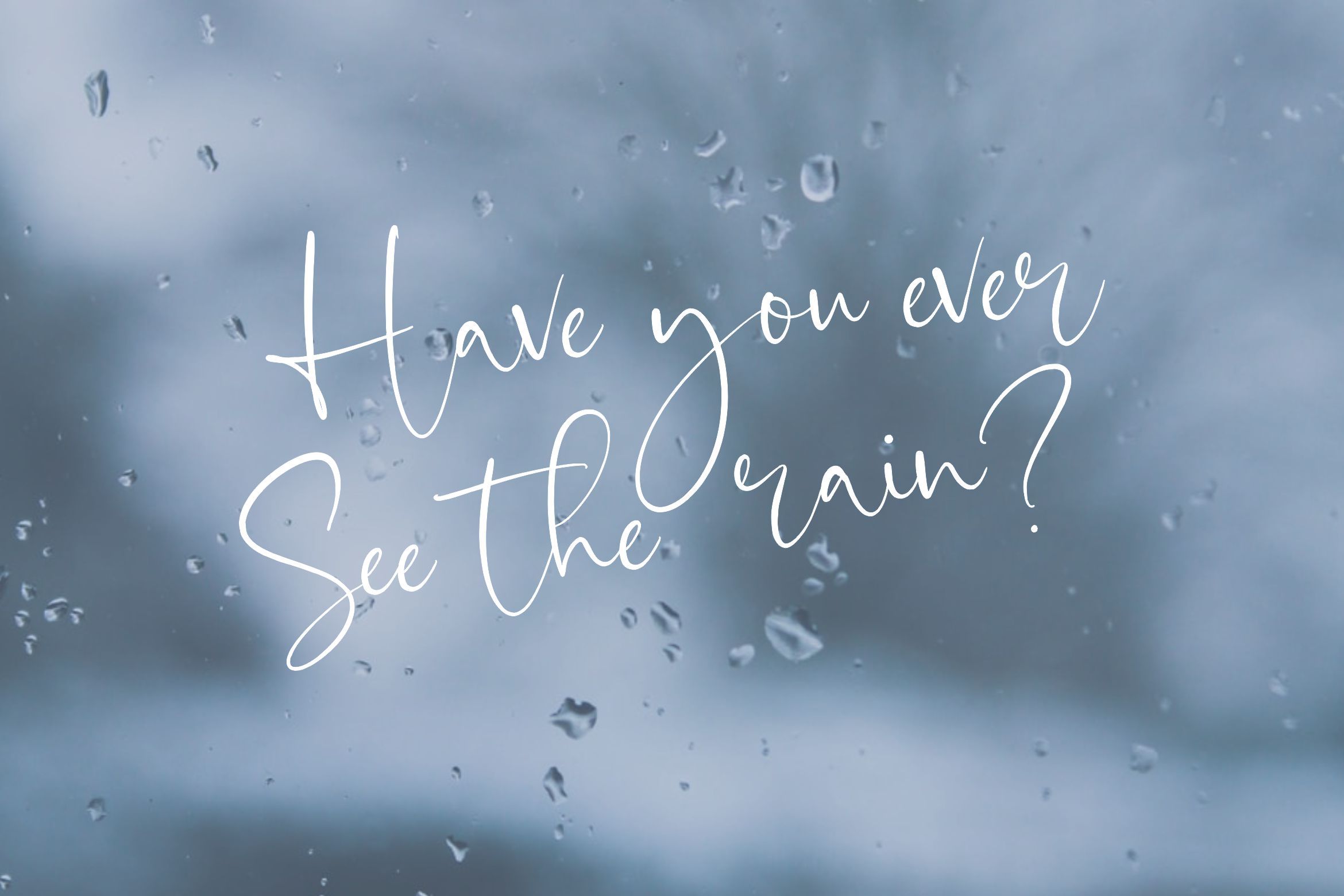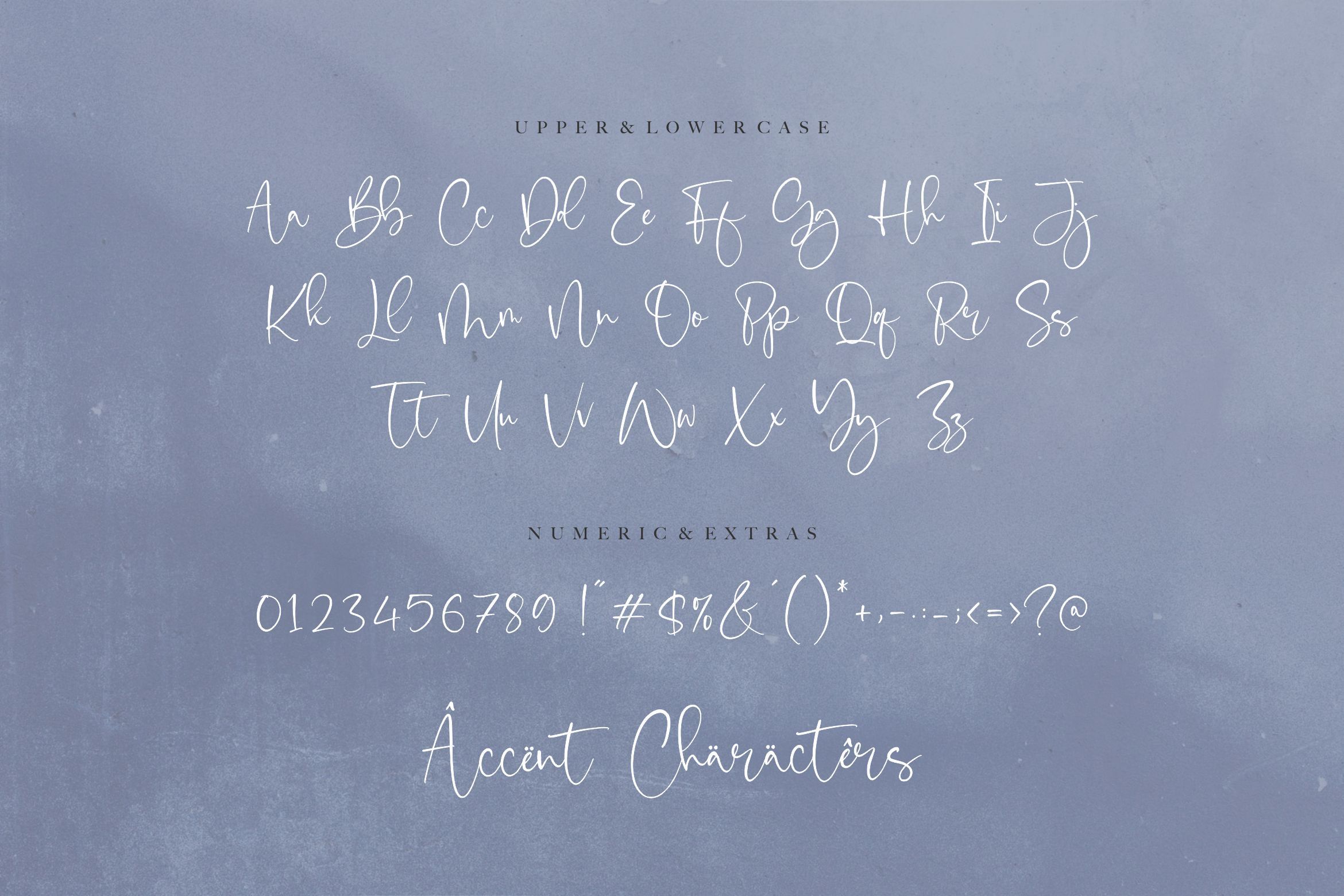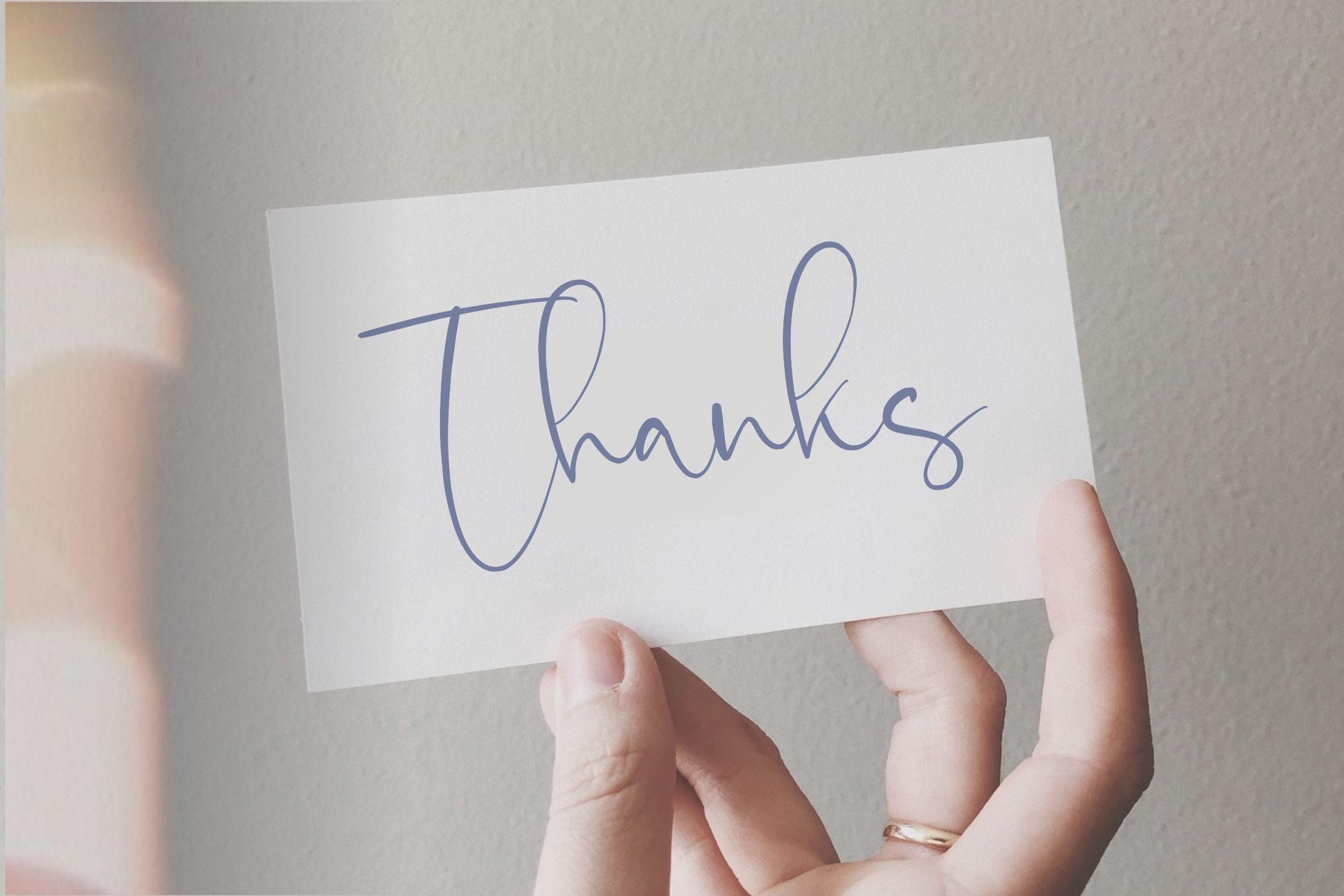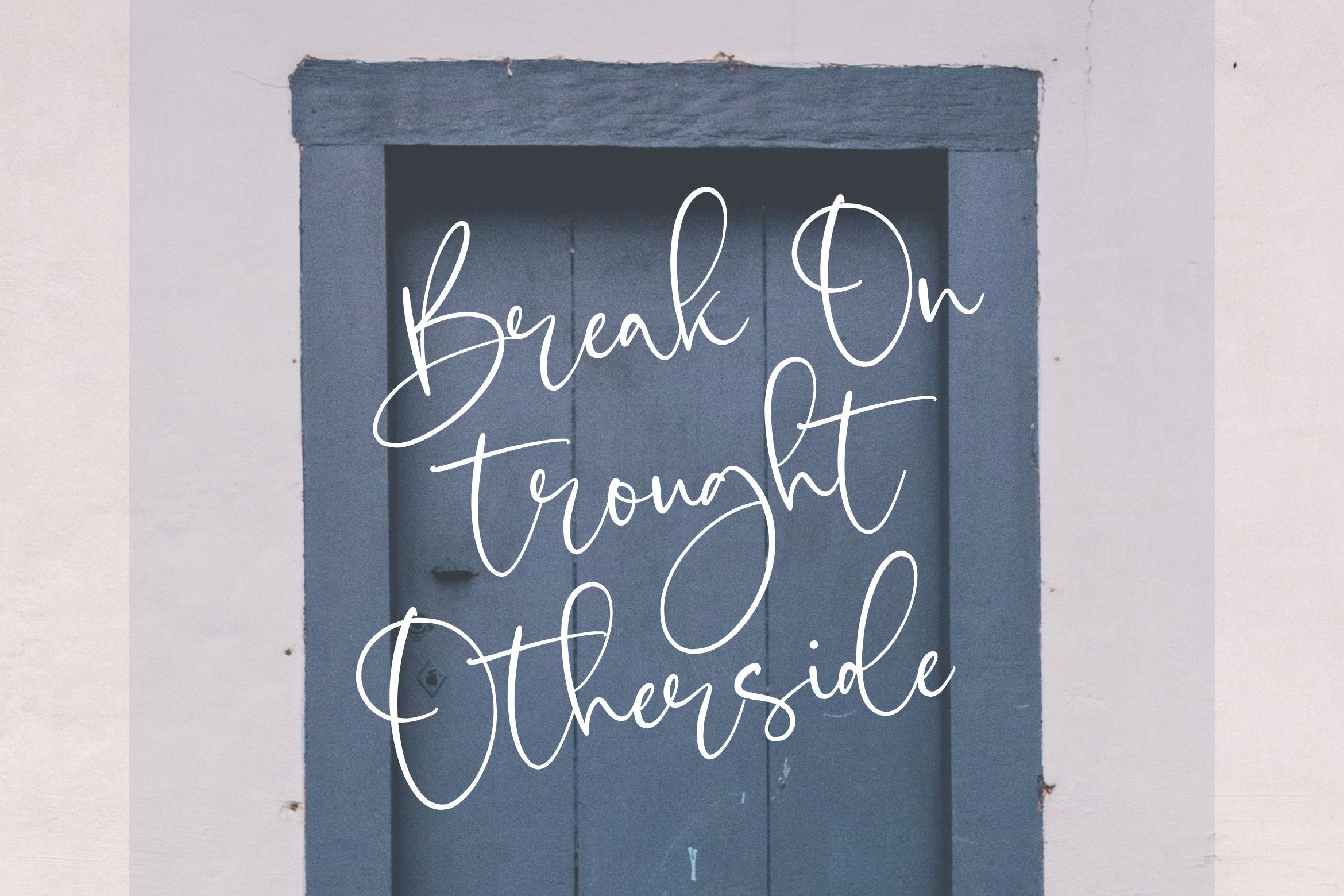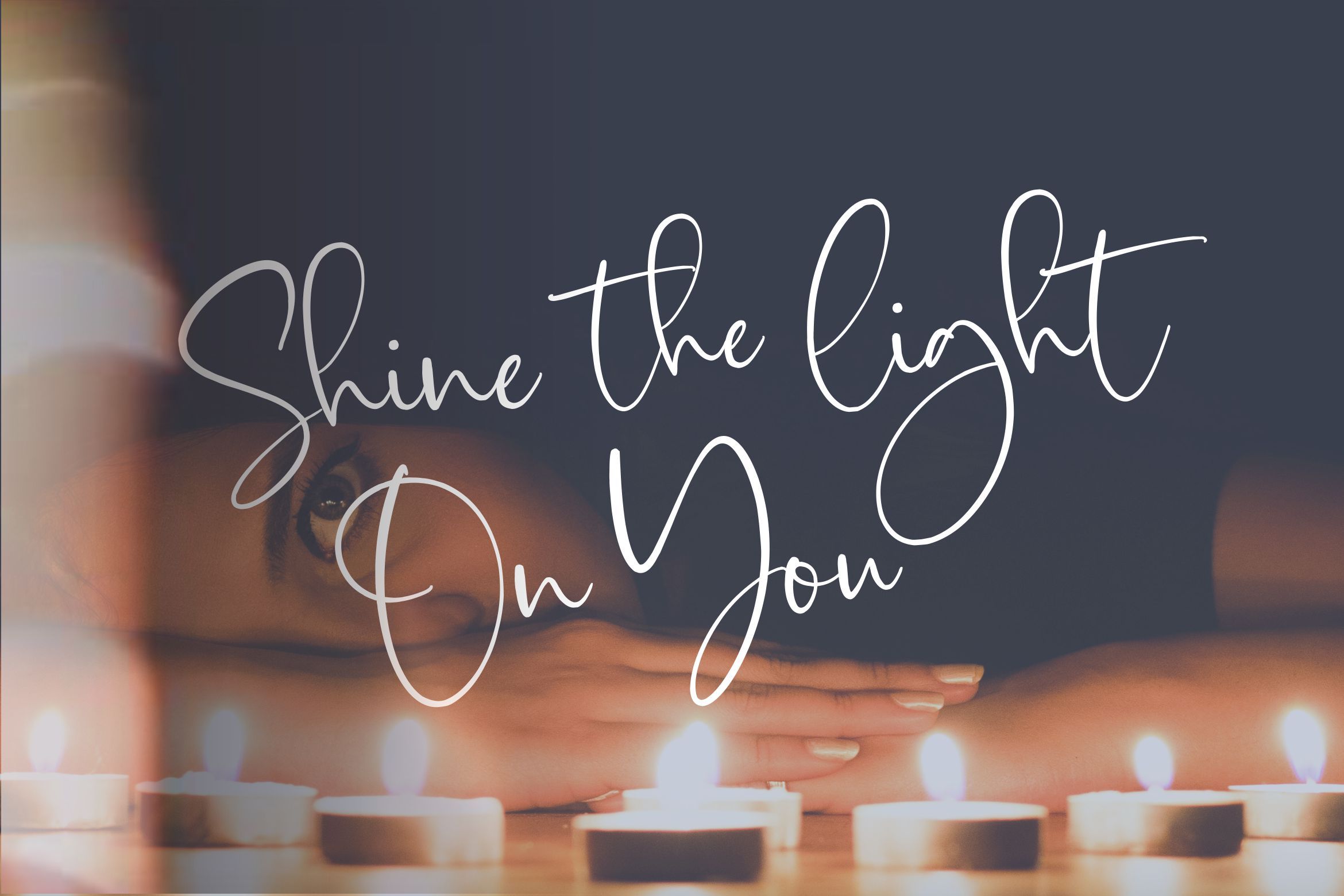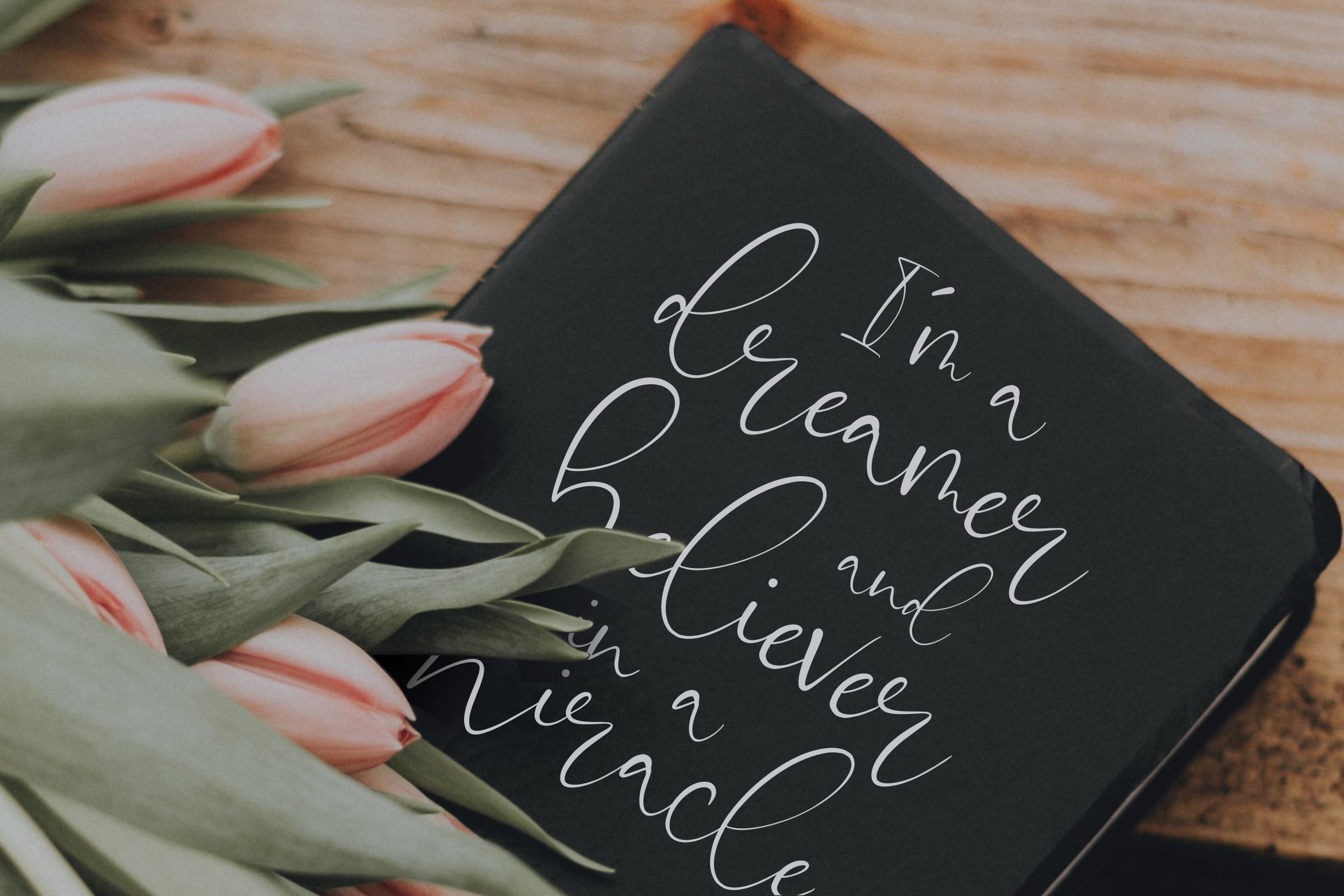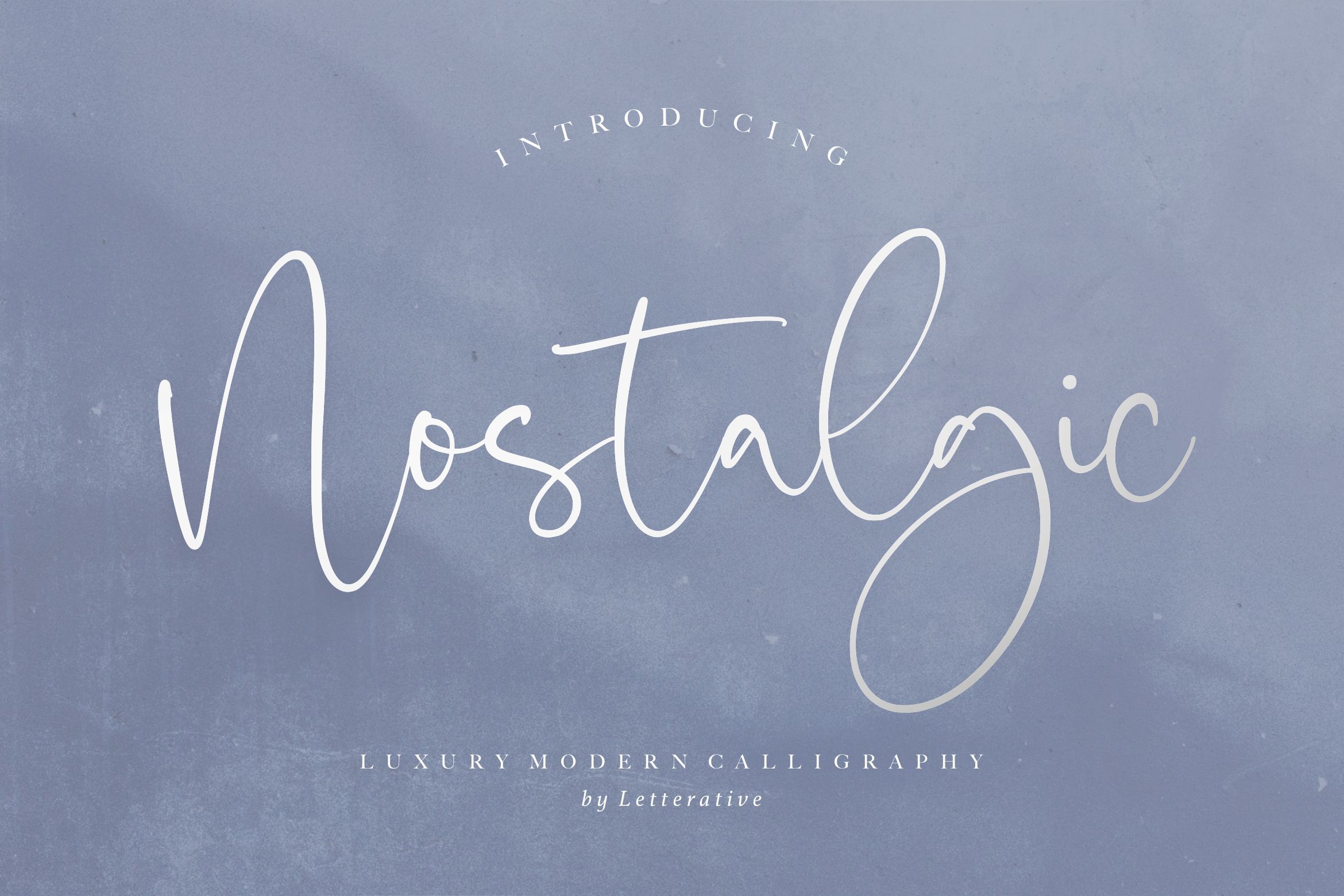
Nostalgic Luxury Modern Calligraphy Font
About Nostalgic Luxury Modern Calligraphy Font
Introducing by Letterative Studio : Nostalgic Font Nostalgic is a Luxury Modern Calligraphy Font Nostalgic is a thin and luxurious handwritten font. It maintains its classy calligraphic influences while feeling contemporary and fresh. Fall in love with it and bring your projects to the highest levels! This font includes : TTF and OTF Nostalgic also multilingual support Enjoy the font! Feel free to comment or feedback Send me PM or email Thank you!